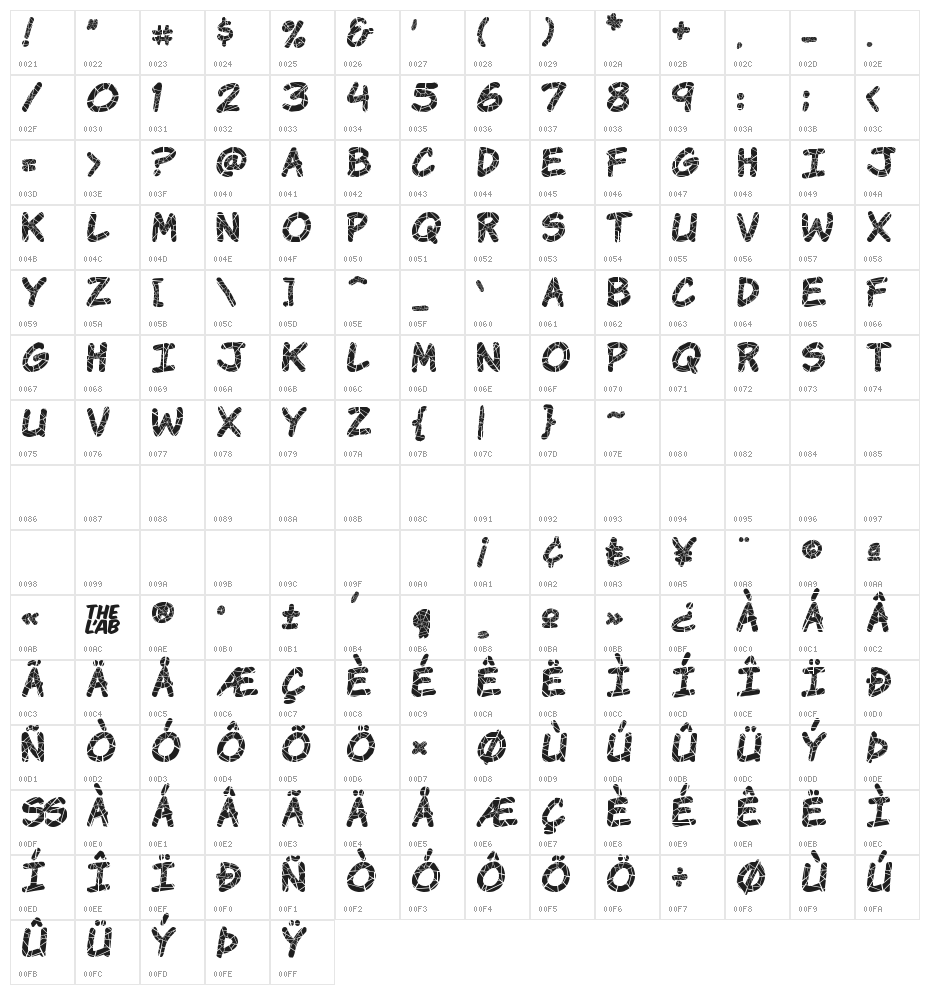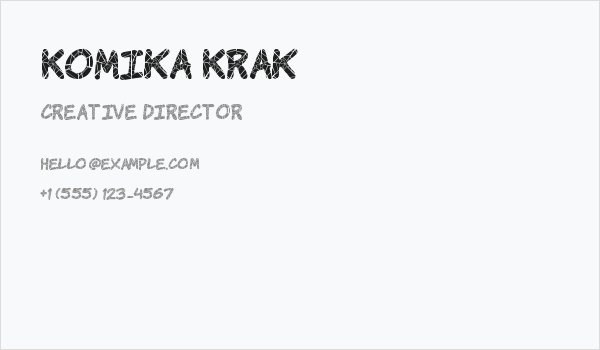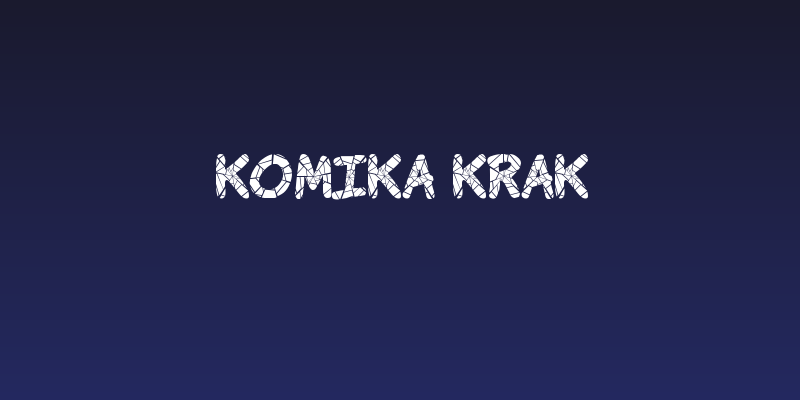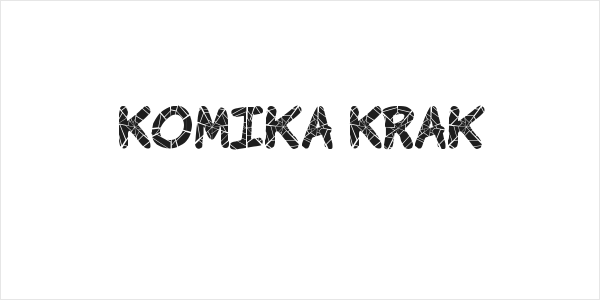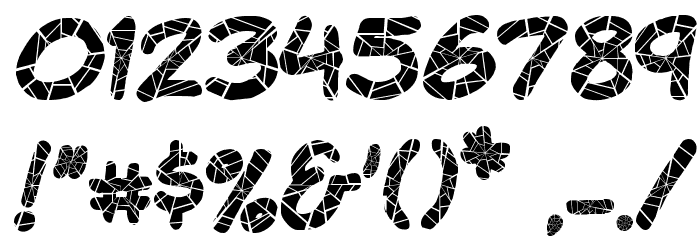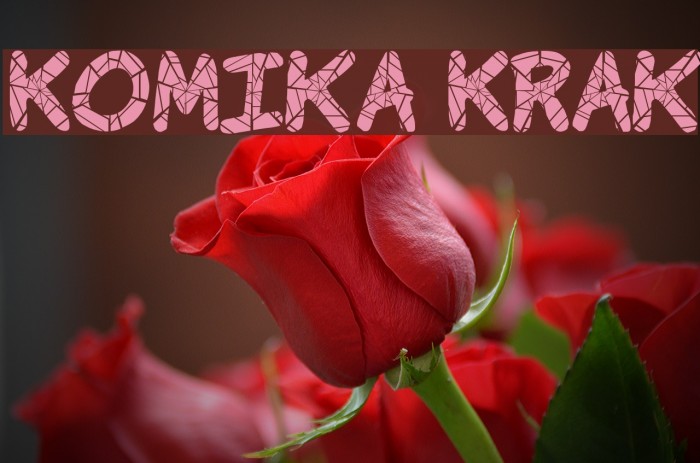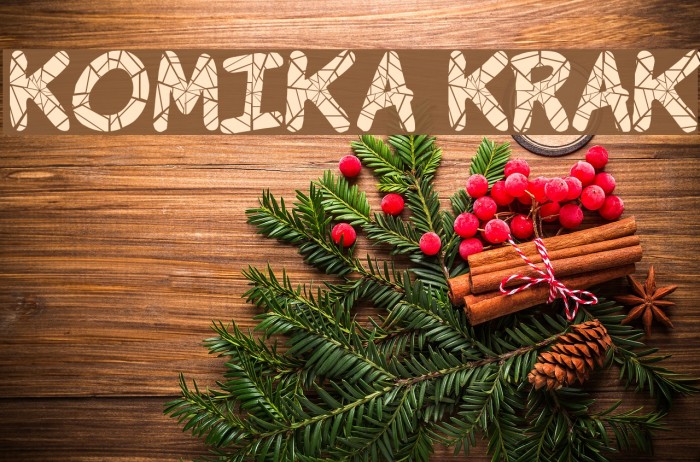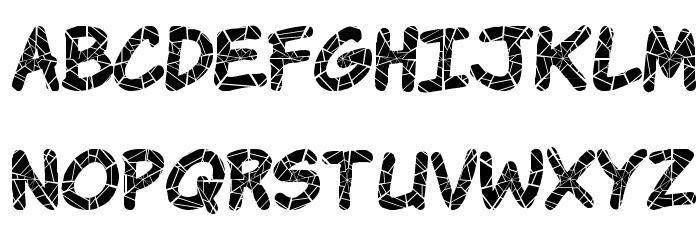
Komika Krak Font
This font features a unique, fragmented design that resembles shattered glass or a mosaic pattern. Each character is bold and heavily stylized, with irregular shapes and lines creating a dynamic and eye-catching appearance. The font maintains a consistent thickness throughout, with a playful and artistic flair that makes it stand out. The uppercase and lowercase letters share the same distinctive style, ensuring uniformity across the text. Numbers and special characters are equally bold and follow the same fragmented design, making them easily recognizable and visually appealing.